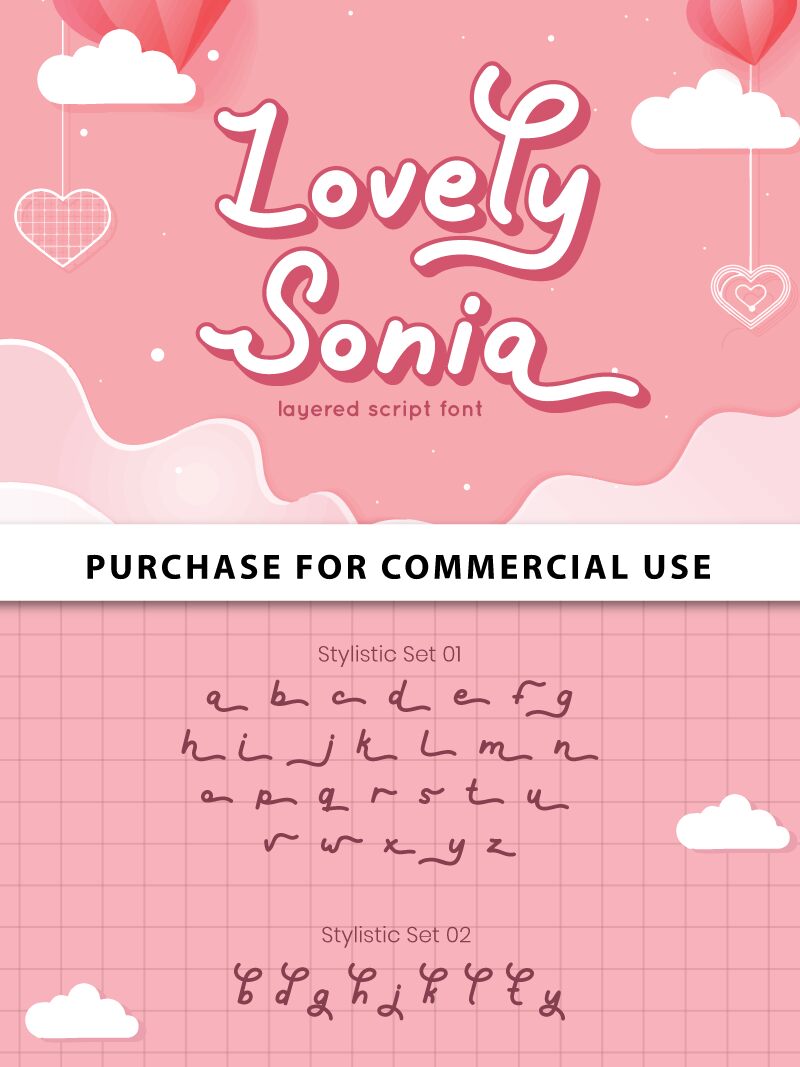
Lovely Sonia Regular
Lovely Sonia is a light, handwritten font designed by Fadli Ramadhan Iskandar. Perfect for adding a personal touch to any project, Lovely Sonia is ideal for crafting cards, posters, logos and more.